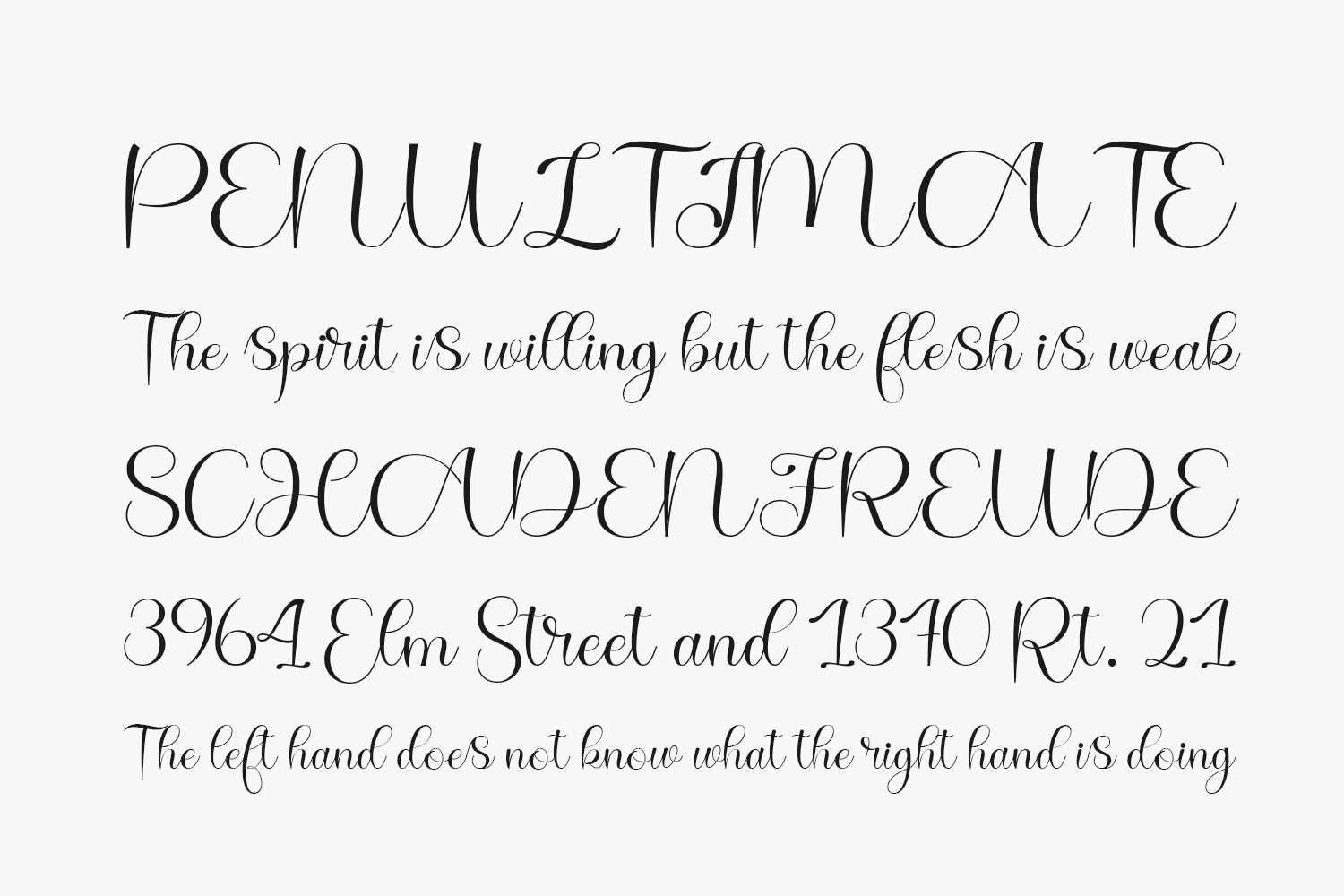
Derlina Script Free Font is a cute script font. Each letter has been carefully crafted to make your text look beautiful. It has a modern script style, that makes it perfect for a wide variety of projects, such as weddings, invitations, greeting cards, posters, business cards, quotes, blog headers, and more. was designed by Nurul Kamal and is free for personal use only. Please purchase the full version for commercial use.
Designed by Nurul Kamal